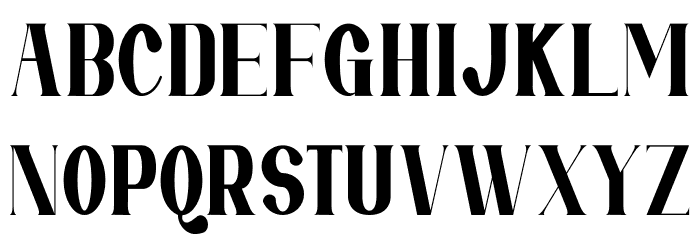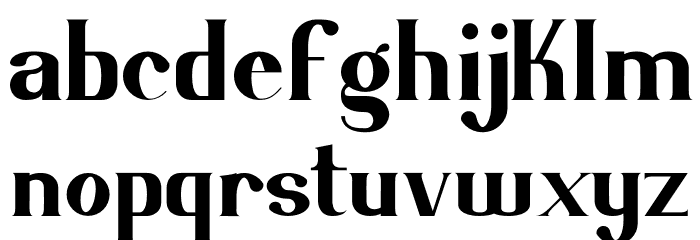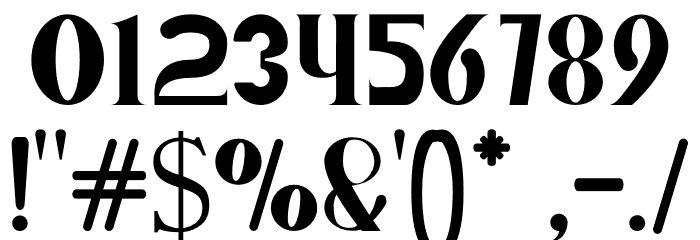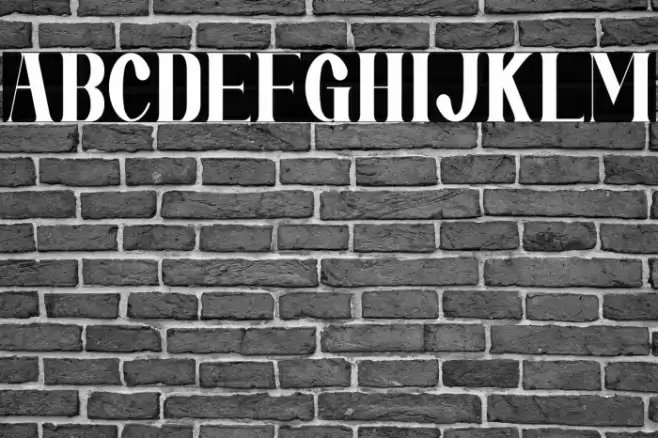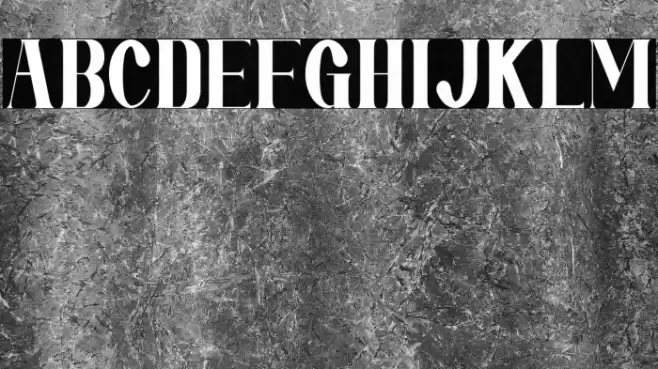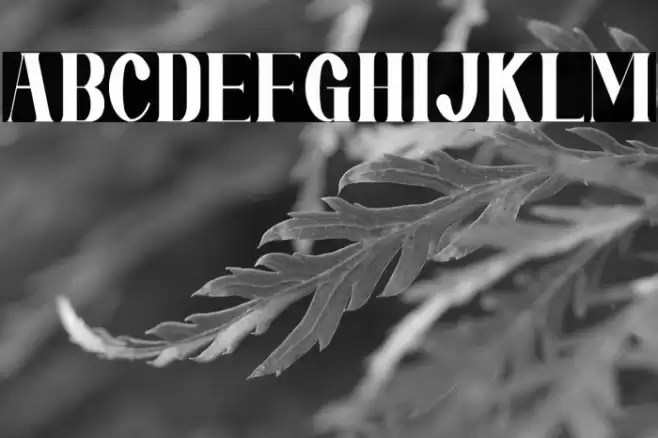
Mirai Futura Font
This font features a bold and dynamic style with a strong presence. The uppercase letters are characterized by sharp, angular serifs and a slightly condensed form, giving them a striking and authoritative appearance. The lowercase letters maintain a consistent weight with rounded curves that contrast with the sharpness of the uppercase. Numerals are bold and clear, ensuring readability. The special characters are distinct and maintain the overall bold aesthetic, making them suitable for attention-grabbing designs. The font's unique blend of sharp angles and smooth curves creates a modern yet timeless feel, making it versatile for various design applications.
A bold, dynamic serif font with sharp angles and smooth curves.
- Font: Mirai Futura
- Proposed Projects: Ideal for branding, poster design, headlines, and editorial layouts where a strong, modern presence is desired.
- Category: Serif